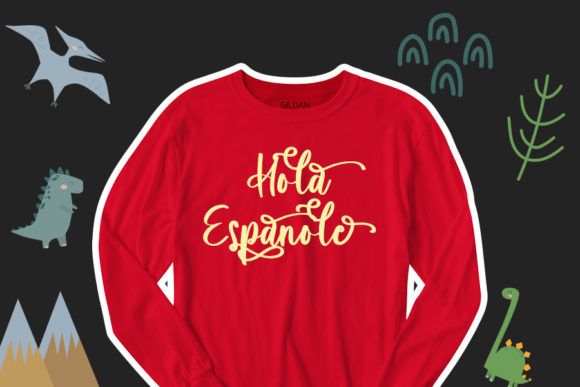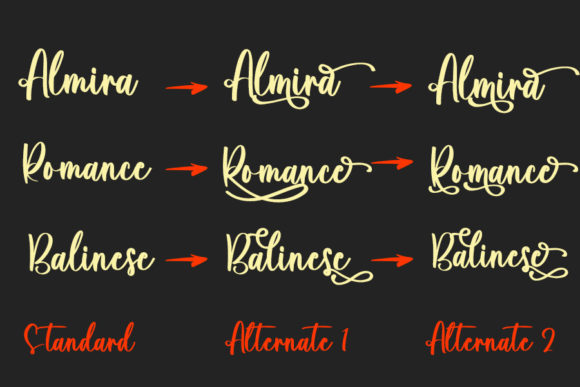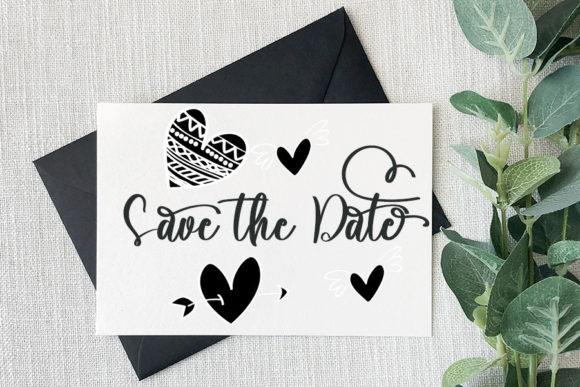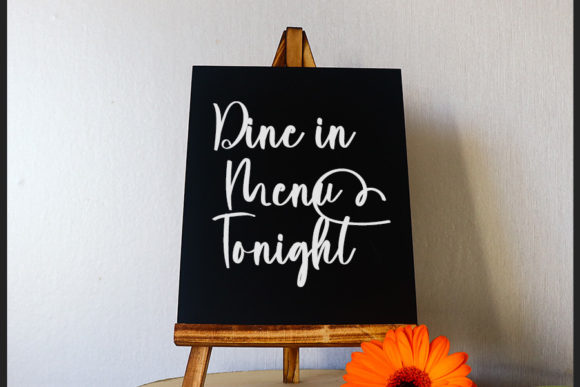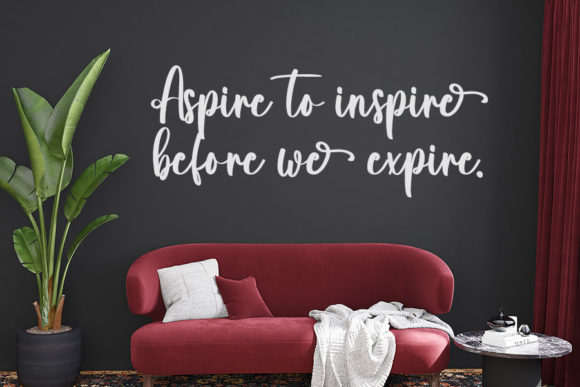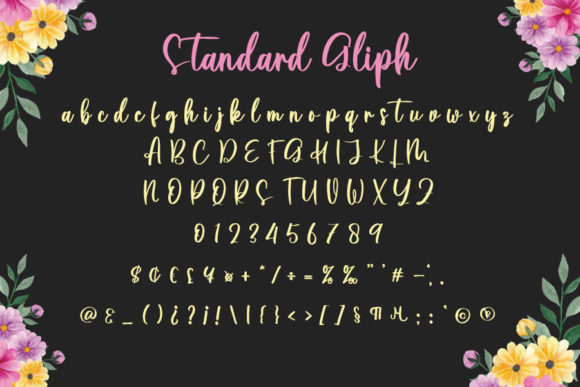
Where Words Become Love Letters
Have you ever sat down with a blank page, a blank mind, and a spark of creativity? That’s when the magic happens. The words start flowing, and your imagination takes over. It’s a moment of pure bliss, where everything else fades away, and all that’s left is you and your art.
For designers, finding the right font can be the difference between a good design and a great one. That’s where the Absolute Romance Font comes in – a beautiful, elegant script font that adds a touch of timeless classic calligraphy to any project. Its perfect balance of thickness and thinness makes it versatile and easy to use, while its varied forms ensure that your text never looks dull or monotonous.
Whether you’re designing a wedding invitation, a love letter, or a simple greeting card, the Absolute Romance Font is the perfect choice. Its beauty and elegance will elevate your project, making it truly special and memorable. So why settle for ordinary when you can have absolute romance in your design?
Key Features of Absolute Romance Font
- Unique Characteristics: Absolute Romance Font features elegant, cursive script with intricate details and flowing lines, making it perfect for wedding invitations, love letters, and other romantic designs.
- Font Style: This font is a beautiful example of a handwritten script, with varying line widths and subtle flourishes that give it a personal touch.
Designer Review: Absolute Romance Font
As a designer, I was excited to try out the Absolute Romance Font. Here’s my honest review.
- The font has a beautiful, elegant aesthetic that’s perfect for romantic and feminine designs.
- The script style is smooth and connected, making it great for titles and headings.
- The font is highly legible, even at smaller sizes, making it a great choice for body text.
- The font includes a wide range of weights and styles, giving you plenty of options for customization.
- The font may be too ornate for some designs, particularly those with a more modern or minimalist aesthetic.
- The font doesn’t include many punctuation marks or special characters, which may require additional styling.
- The font may not be suitable for use in digital products, such as apps or websites, due to its high stroke width.
The Absolute Romance Font is a beautiful and elegant font that’s perfect for romantic and feminine designs. While it may have some limitations, it’s a great choice for designers looking to add a touch of sophistication and whimsy to their projects.
For the best results, use the font in a romantic or whimsical design, such as a wedding invitation or a love letter.
For the best results, use the font in a romantic or whimsical design, such as a custom wedding invitation or a love letter.
For the best results, use the font in a romantic or whimsical design, such as a presentation or a love letter.
Some tips for getting the most out of the Absolute Romance Font include:
Using it in a bold or cursive style to add emphasis to your text.
Pairing it with other romantic fonts or graphics to create a cohesive design.
Using it in a custom wedding invitation or love letter to add a personal touch.